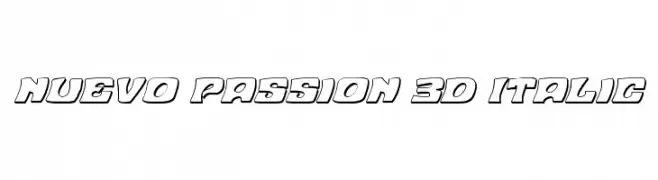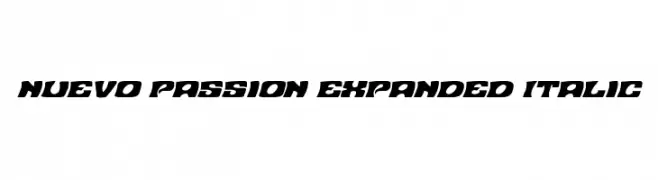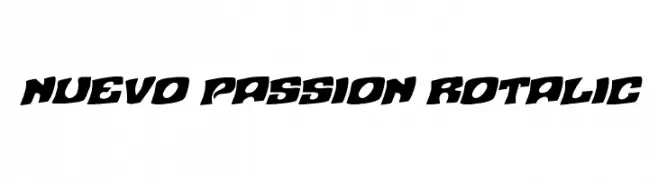
A sleek, modern italic font with clean lines and a professional appearance.
A bold, playful font with rounded, whimsical characters.
A bold, slanted font with a dynamic and playful style.
A bold, 3D italic font with outlined characters and a modern, dynamic style.
A bold, slanted font with a dynamic and modern style.
A bold, expanded, and italicized font with a dynamic and modern style.
A vintage, hand-drawn font with irregular, organic shapes and a mysterious vibe.
A bold, decorative font with a vintage, three-dimensional style.